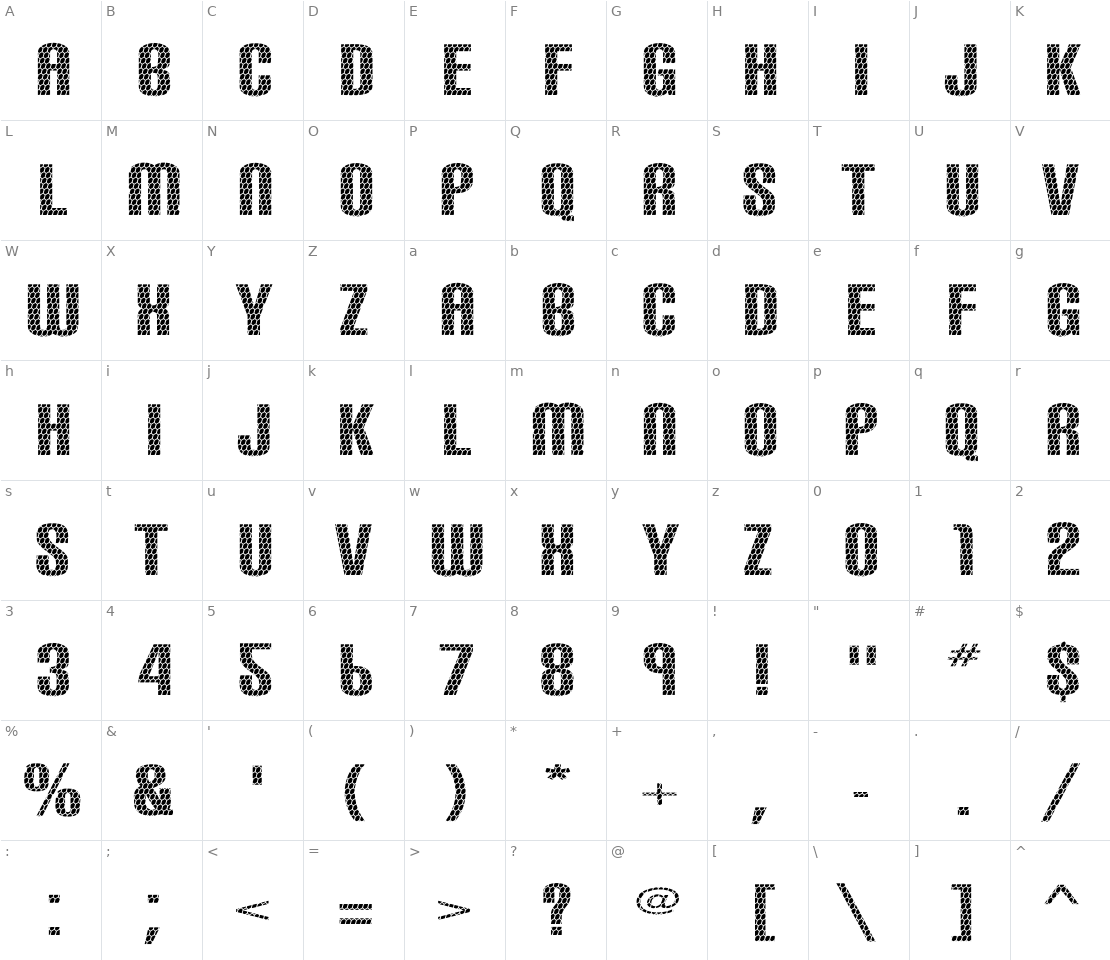
Carbon Phyber
by Ray Larabie · Website
Carbon Phyber is a geometric display face from Ray Larabie with a woven carbon-fiber texture baked into every letterform, giving it an unmistakably industrial, high-performance look. Uppercase only, with rigid proportions and a futuristic edge that feels right at home on automotive branding, tech posters, and sports graphics. Best used at large sizes where the crosshatch pattern reads clearly rather than turning to noise.